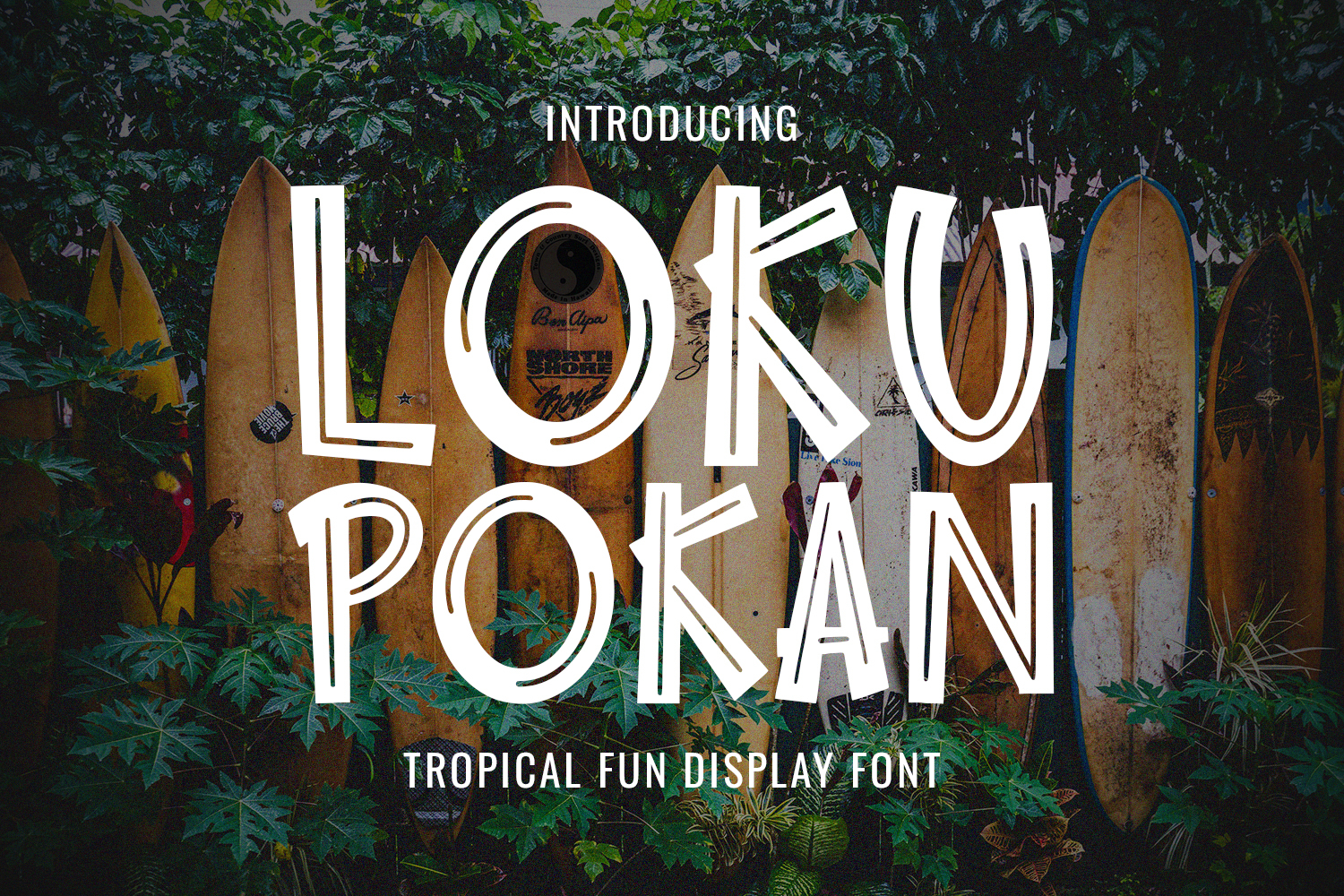
Loku Pokan Tropical Fun Display Font
Bring the sunshine and fun of the tropics to your designs with Loku Pokan!
This playful, all-caps display font is bursting with personality, featuring a hand-drawn, bouncy style that captures the relaxed, carefree spirit of a Hawaiian beach holiday. Loku Pokan is perfect for any project that needs a dose of laid-back charm and tropical flair.
Key Features:
- Tropical & Playful Style: Fun, bold, and energetic, ideal for summer themes.
- All Caps Design: Strong presence, excellent for headlines and logotypes.
- Hand-Drawn Feel: Adds a unique, authentic, and organic touch.
- Multilingual Support: Ready for international projects (as shown in the character set).
Loku Pokan is the perfect choice for:
- Logotypes and branding for beach resorts, juice bars, or tropical clothing lines.
- Posters, flyers, and social media graphics for summer events and festivals.
Packaging for food, drinks, or beauty products with a fruity or tropical base.
Children's books, comics, and fun, playful titles.
T-shirt and merchandise designs.
Dive into the good vibes and make your next project a tropical success with Loku Pokan!